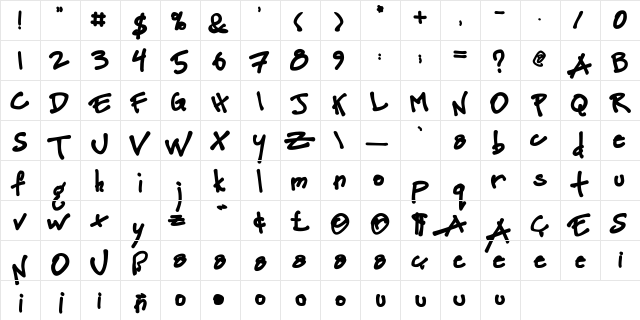
Petescript Bold
Design Context for Petescript Typeface
Petescript flows with the natural rhythm of handwritten lettering, making it ideal for designs that call for warmth and personal expression. The heavy weight commands attention and anchors typographic hierarchies.
Font Pairing: Combine Petescript with a simple geometric sans for maximum contrast — the tension between flowing curves and clean structure is a classic typographic pairing.
Pro Tip: Pair Petescript with a clean sans-serif for supporting text. The contrast between fluid script and geometric structure creates an elegant typographic hierarchy.